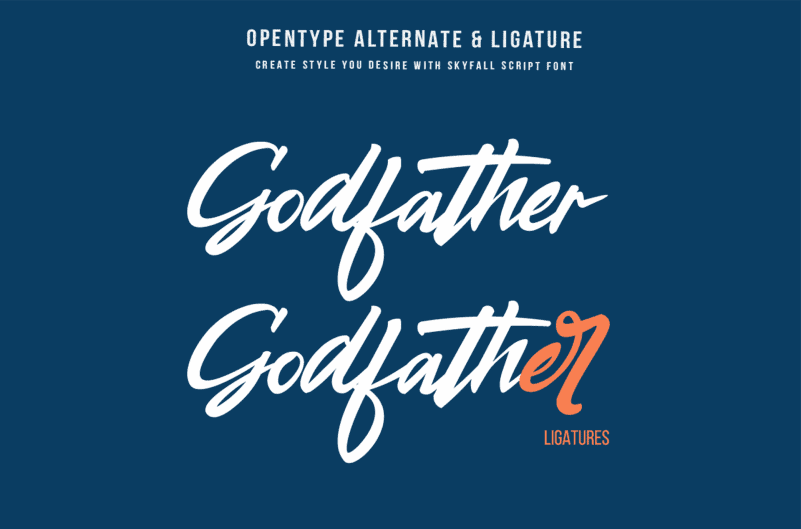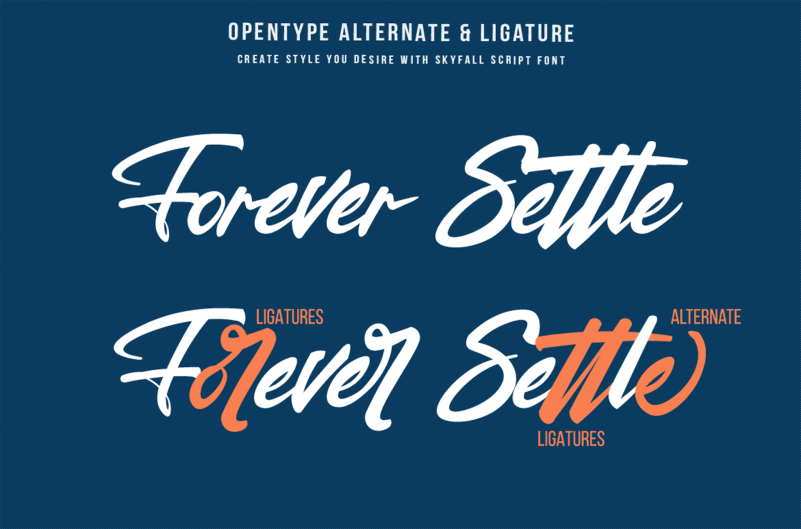
Skyfall – Script Font
Skyfall Script Font is a stunning hand-lettered font manufactured by Bluetype. You will get full set of lowercase and uppercase letters, numerals and punctuation, multilingual symbols, alternate lowercase, and pack of ligatures. Perfect for creating elegant branding and headlines for handmade, food & beverage and artisan goods. Create quotes, invites, t-shirts, Logos, or use it to make your instagram feed on another level!
• Alternates
• Ligatures
• Uppercase and Lowercase letters
• Numbering, Symbols, and Punctuations
• Multilingual Support